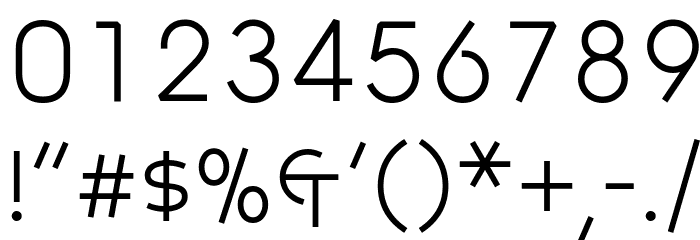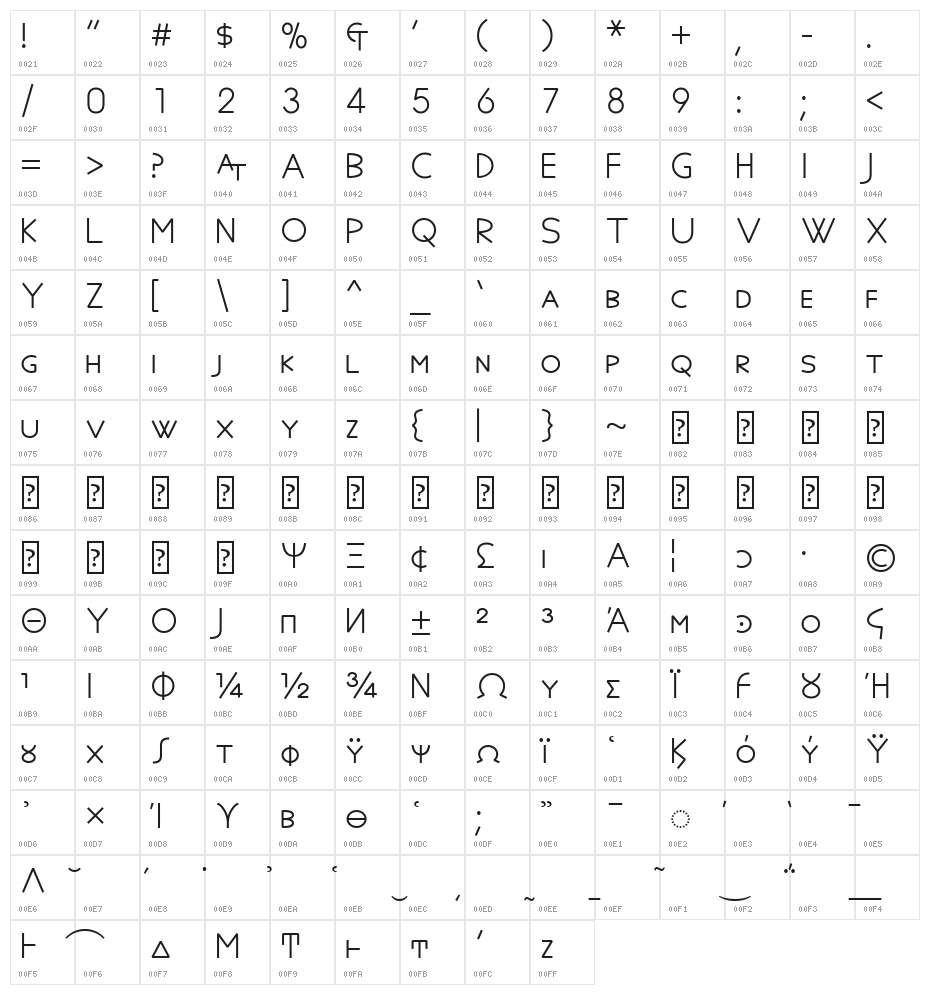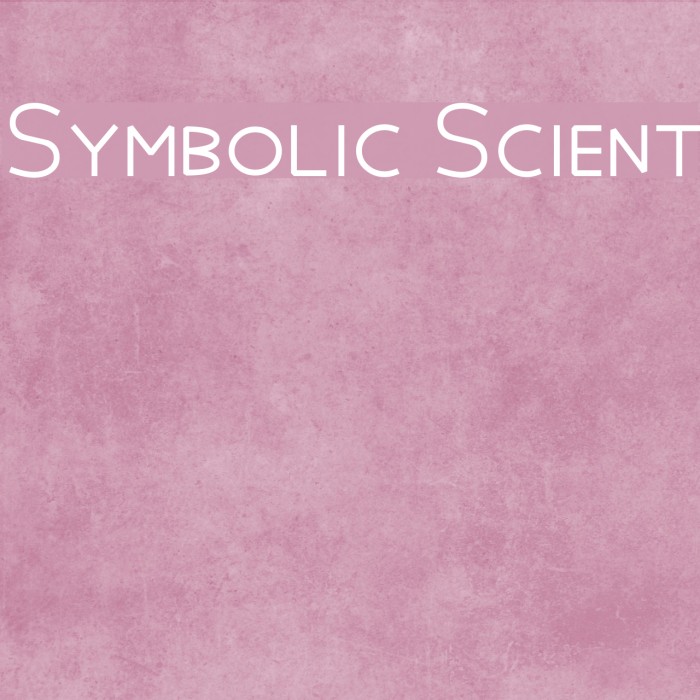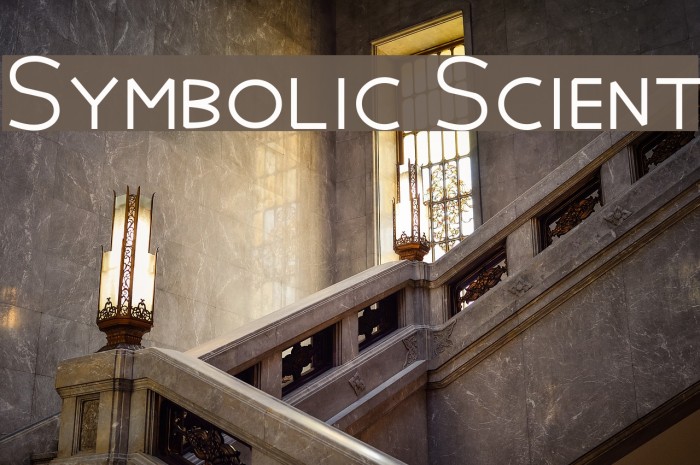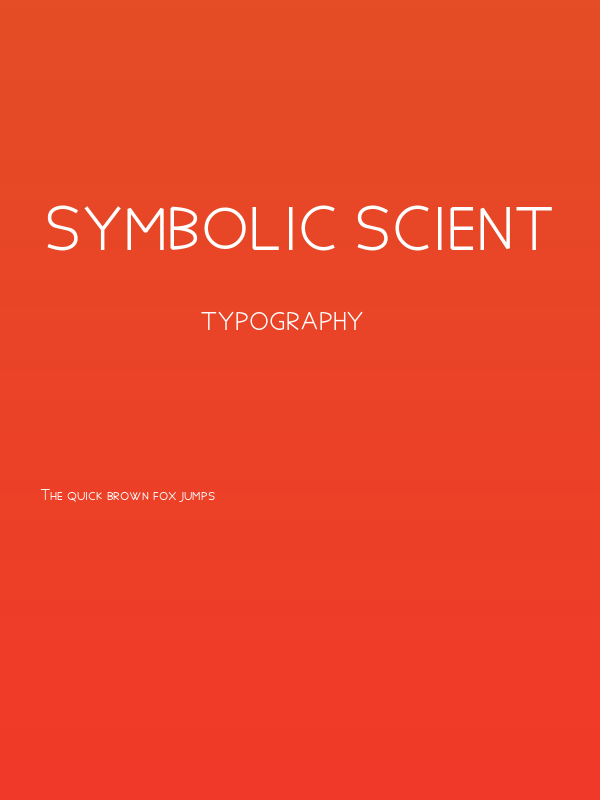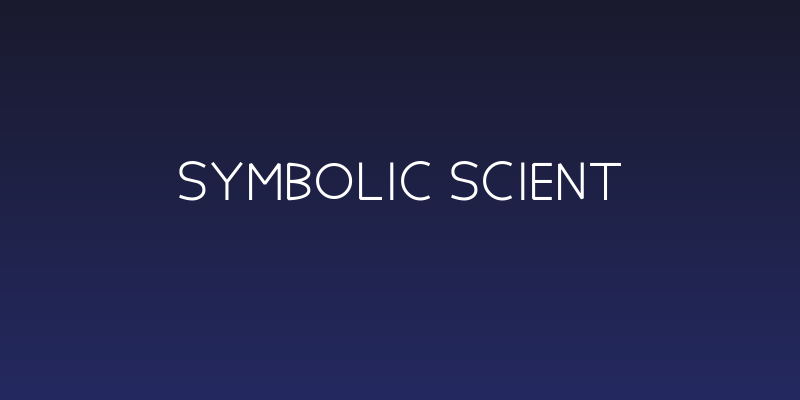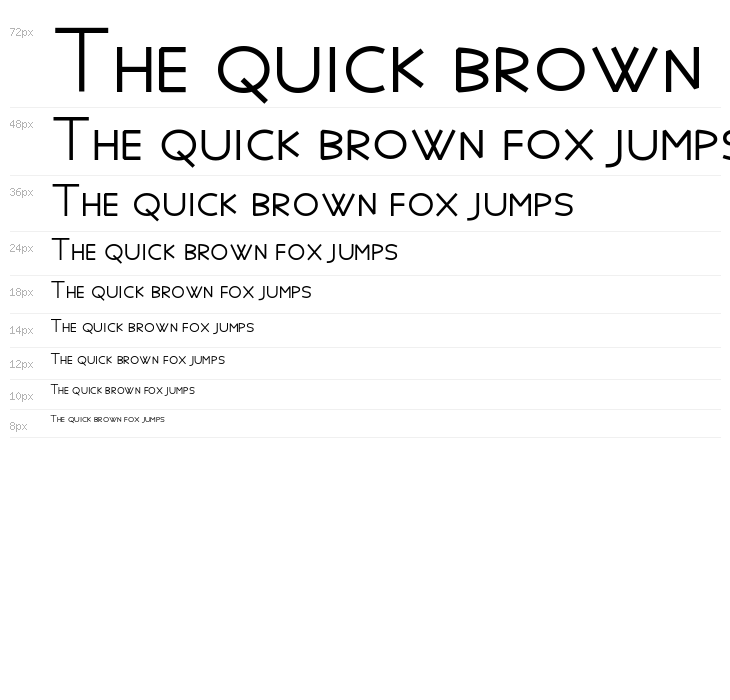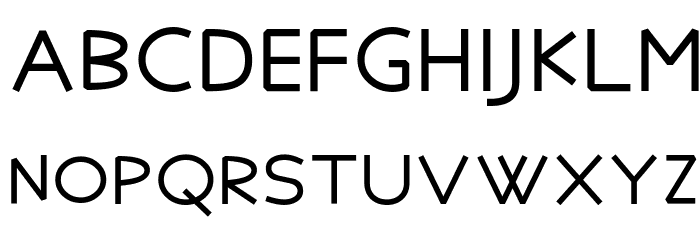
Symbolic Scient Font
Symbolic Scient Description
This font features a clean and modern sans-serif design with uniform stroke widths, creating a minimalist and contemporary appearance. The characters are well-proportioned, with a geometric influence that is evident in the symmetrical shapes and balanced forms. The uppercase and lowercase letters maintain a consistent style, enhancing readability and versatility. The numerals are clear and straightforward, matching the overall aesthetic. Special characters are included, providing a comprehensive set for various uses. The font's simplicity and clarity make it suitable for a wide range of applications, from digital interfaces to print media.